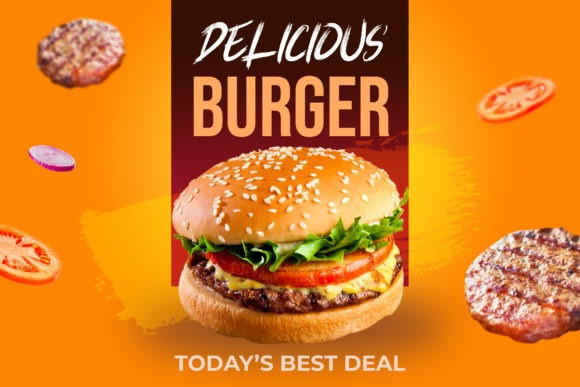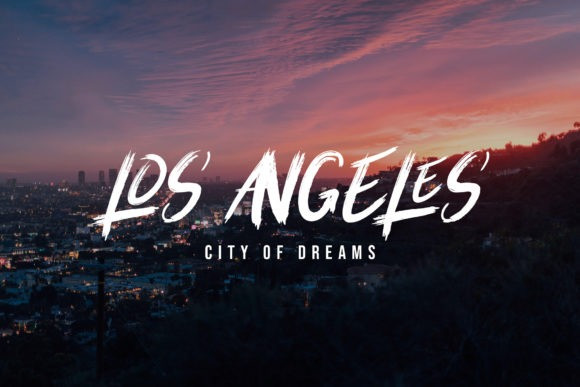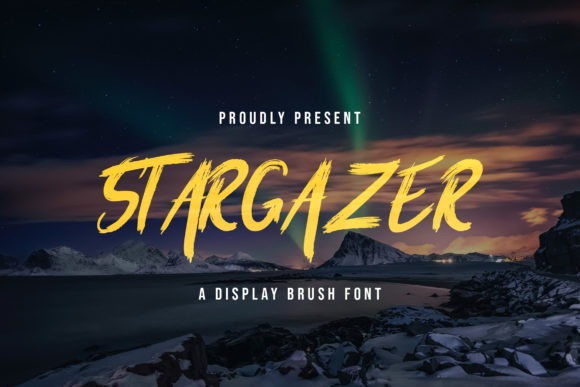
Stargazer Font
Stargazer Font is a cool and brushed display font. It works incredibly well on urban designs or pretty much anything that requires a street art vibe.